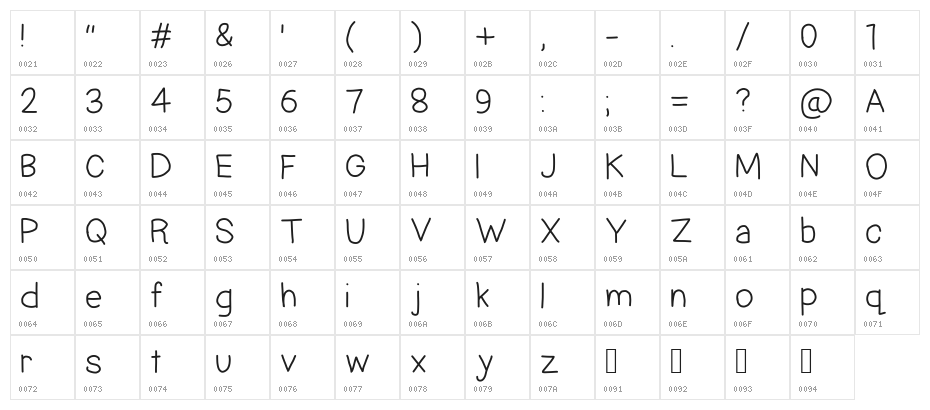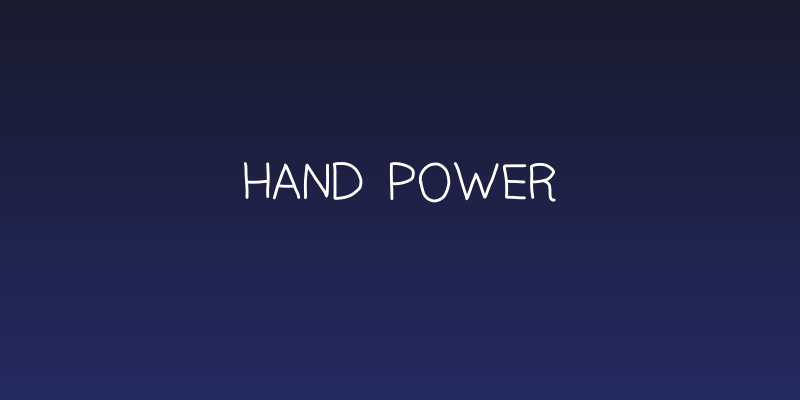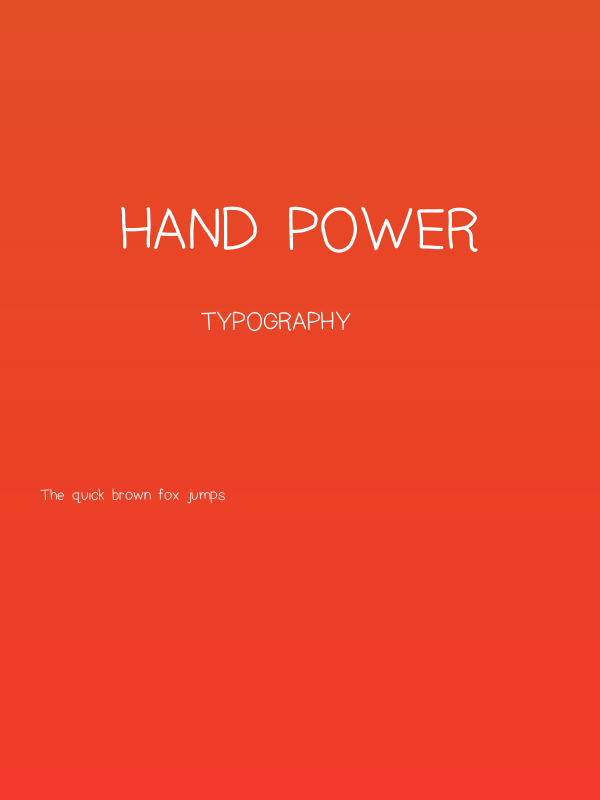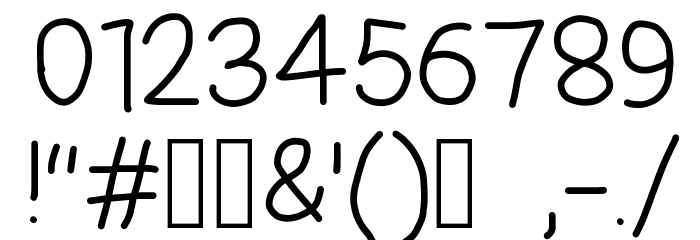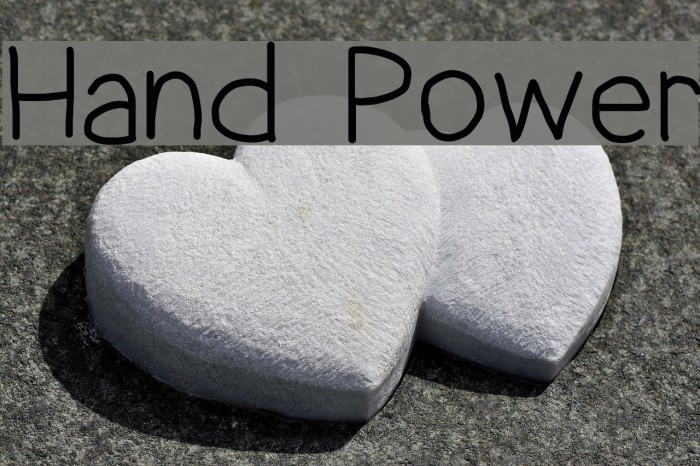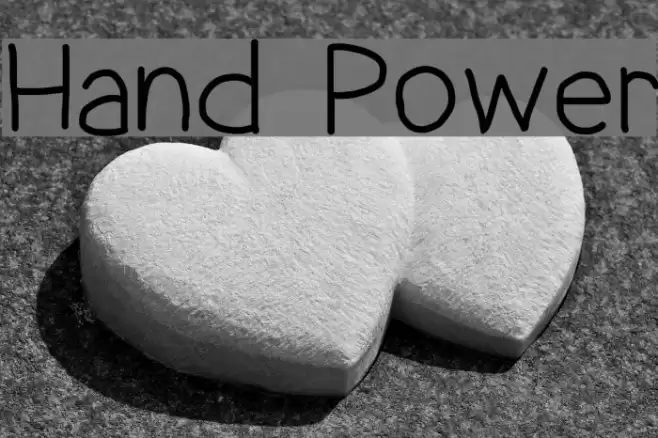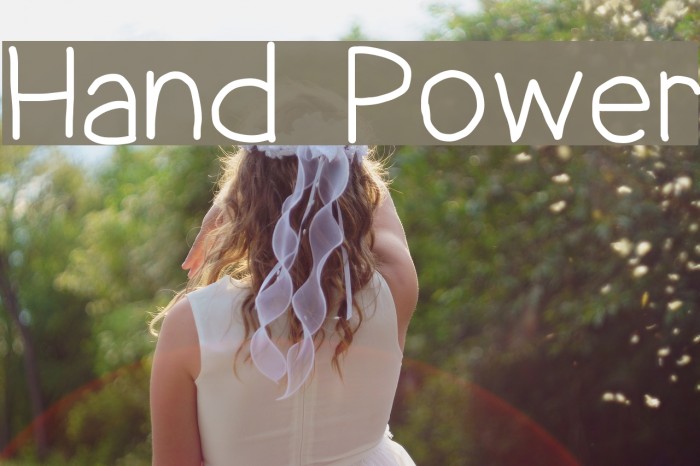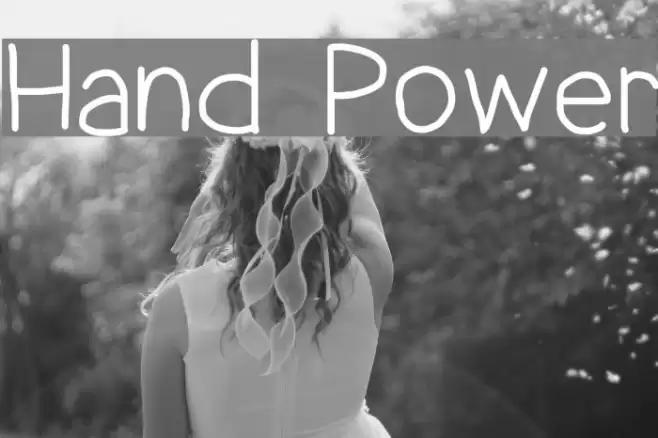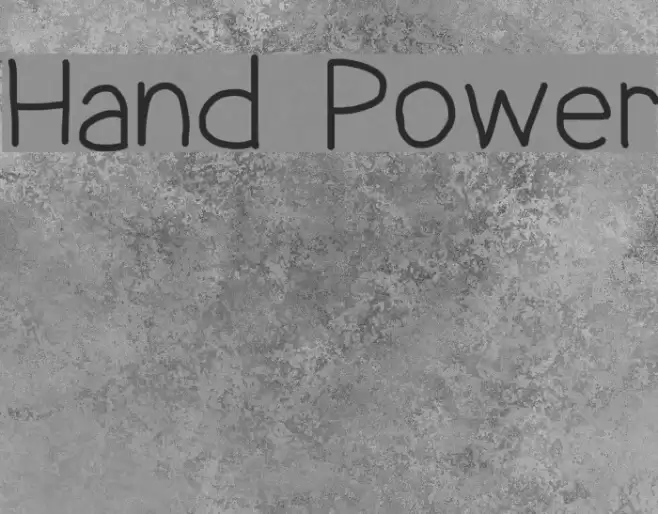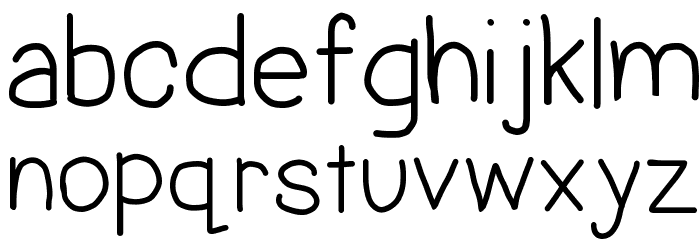
Hand Power Font
Hand Power Description
This font exudes a playful and approachable vibe with its handwritten style. The characters are rounded and slightly irregular, mimicking the natural flow of handwriting. It features a consistent stroke width, giving it a clean and modern look while maintaining a casual feel. The uppercase and lowercase letters are well-balanced, and the numerals are clear and easy to read. Special characters are included, adding versatility to its use. This font is perfect for projects that require a personal touch, such as invitations, greeting cards, or children's books.
| Overall Style | Casual |
| Use Case | Headlines, Informal text, Creative projects |
| Proposed Projects | Ideal for invitations, greeting cards, children's books, and casual branding. |